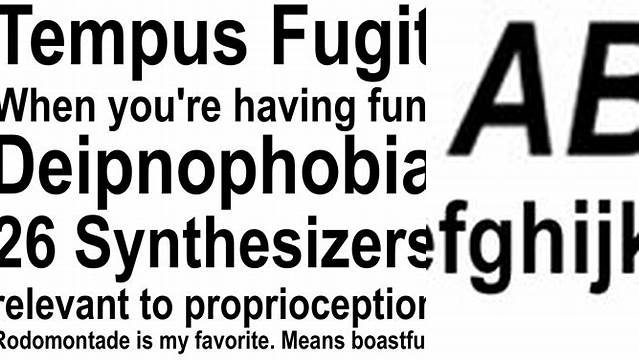
Arial Narrow OS Bold Font: Your Guide to a Sleek and Readable Font
Arial Narrow OS Bold font free is a popular choice for those seeking a condensed yet easily readable typeface. This article dives deep into the characteristics, uses, and availability of this versatile font, ensuring you have all the information you need. We'll explore where to find it, how to use it effectively, and why it remains a favorite among designers and users alike. Whether you're a seasoned professional or just starting with design, understanding Arial Narrow OS Bold can significantly impact your projects. Let's get started!
Understanding Arial Narrow OS Bold
Arial Narrow OS Bold font free is a variation of the Arial font family, known for its clean and modern aesthetic. The 'Narrow' aspect indicates that the characters are more condensed, allowing more text to fit within a limited space. The 'OS' typically refers to an operating system-specific version, ensuring optimal rendering on various platforms. The 'Bold' style gives a heavier weight to the font, making it stand out and catch the eye. This combination of features makes Arial Narrow OS Bold a highly versatile font, suitable for a wide range of applications. Its condensed nature makes it ideal for headlines, subheadings, and situations where space is at a premium, like in narrow columns or small displays. The bold weight ensures that the text is easily legible, even at smaller sizes. This is great, right?
When choosing a font, the characteristics are crucial. Arial Narrow OS Bold strikes a balance between readability and space efficiency. The font is known for its geometric design, making it feel clean and modern. This is a sans-serif font, meaning it lacks the small strokes (serifs) at the ends of the letters. This absence of serifs contributes to a clean and streamlined appearance, making it suitable for both print and digital media. Because it's bold, the font has a strong presence, which is excellent for drawing attention to important text. It's easily recognizable and compatible with various operating systems. All in all, Arial Narrow OS Bold font free is a fantastic choice for anyone wanting a clear, easy-to-read, and space-efficient typeface. Understanding its core features allows you to make informed decisions about when and how to use this font effectively. Always think of Arial Narrow OS Bold font free as your friend.
Effective Uses of Arial Narrow OS Bold
Arial Narrow OS Bold font free is incredibly versatile, making it a great option for various design projects. Its condensed and bold characteristics make it perfect for specific applications. Due to its condensed design, it is well-suited for headlines and subheadings. The ability to fit more text in a limited space without sacrificing readability is a big advantage. Its strong presence makes headlines stand out. If you're working on a website, brochure, or presentation, consider using Arial Narrow OS Bold to grab attention. It is excellent for call-to-action buttons or highlighting important information.
This font is also a good option for tables, charts, and data visualizations. The condensed style lets you display more data in a compact format, and the bold weight ensures that the text is easy to read. Think of it for displaying financial figures, product specifications, or survey results. Arial Narrow OS Bold is a solid choice for body text in situations where space is limited. It's legible even at smaller sizes, making it suitable for user interfaces, mobile apps, and print materials with narrow columns. While generally, it is not a prime option for extensive blocks of body text, it can be effective for short paragraphs and captions. Its modern look suits many design aesthetics. It is perfect for both digital and print materials. Overall, Arial Narrow OS Bold font free excels in situations where space is a premium. The bold weight enhances readability, making it a powerful tool for designers and anyone looking to convey information effectively. Its versatility and clean design make it a top choice.
Tips for Using Arial Narrow OS Bold Effectively
To get the most out of Arial Narrow OS Bold font free, it's helpful to follow some design best practices. First, consider contrast. Pair Arial Narrow OS Bold with a contrasting font for body text. This creates visual interest and improves readability. If the headline is in bold, then use a lighter weight font for the body text. This helps differentiate between the different elements on the page. Next, think about the size and spacing. Adjust the font size and line spacing to optimize readability. In general, use a larger font size for headlines and subheadings to make them stand out. Make sure the line spacing is appropriate for the font size to avoid overcrowding. In addition, the font should be readable. Test how it looks on different devices and screen sizes.
Carefully select the color. Ensure that the color choices maintain readability and visual harmony. Dark text on a light background generally works best. Try to avoid bright colors. The font should support your design goals. If you are using it for a professional document or a creative project, keep the design in mind. The font should align with the overall style and brand identity. If you are working on a website, you may want to make sure the font is web-safe. Web-safe fonts are those that are commonly available on most devices. This ensures that the font displays correctly for all users. By following these tips, you can ensure that you use Arial Narrow OS Bold font free effectively. You will create visually appealing and readable designs. Make sure to keep it in mind as you design. These practices help you leverage the font's strengths and create a polished and professional look.
Alternatives to Arial Narrow OS Bold
While Arial Narrow OS Bold font free is a great option, it's always good to know about alternatives. Various other fonts offer similar characteristics, allowing you to explore different styles and aesthetics. One popular alternative is Helvetica Neue Condensed Bold. This font is another condensed sans-serif option, known for its clean lines and readability. It's often used in professional design and branding. Another good choice is Impact, which is a bolder, more attention-grabbing font. Impact is an excellent choice for headlines or elements that need to stand out. It is very noticeable.
Arial Narrow OS Bold font free is a powerful and versatile typeface. It strikes an excellent balance between readability and space efficiency. The font's condensed and bold characteristics make it an excellent choice for headlines, subheadings, and situations where you need to fit a lot of text in a small space. While it's typically available on most operating systems, always download fonts from reliable sources and check the licensing. Use it effectively by pairing it with contrasting fonts, adjusting the size and spacing, and ensuring readability across devices. Several great alternatives exist if you're looking for something different. With its clean design and adaptability, Arial Narrow OS Bold font free is a valuable tool for any designer or user. Using this information helps you make the best decisions for your projects. Consider it a key component of your design toolkit.